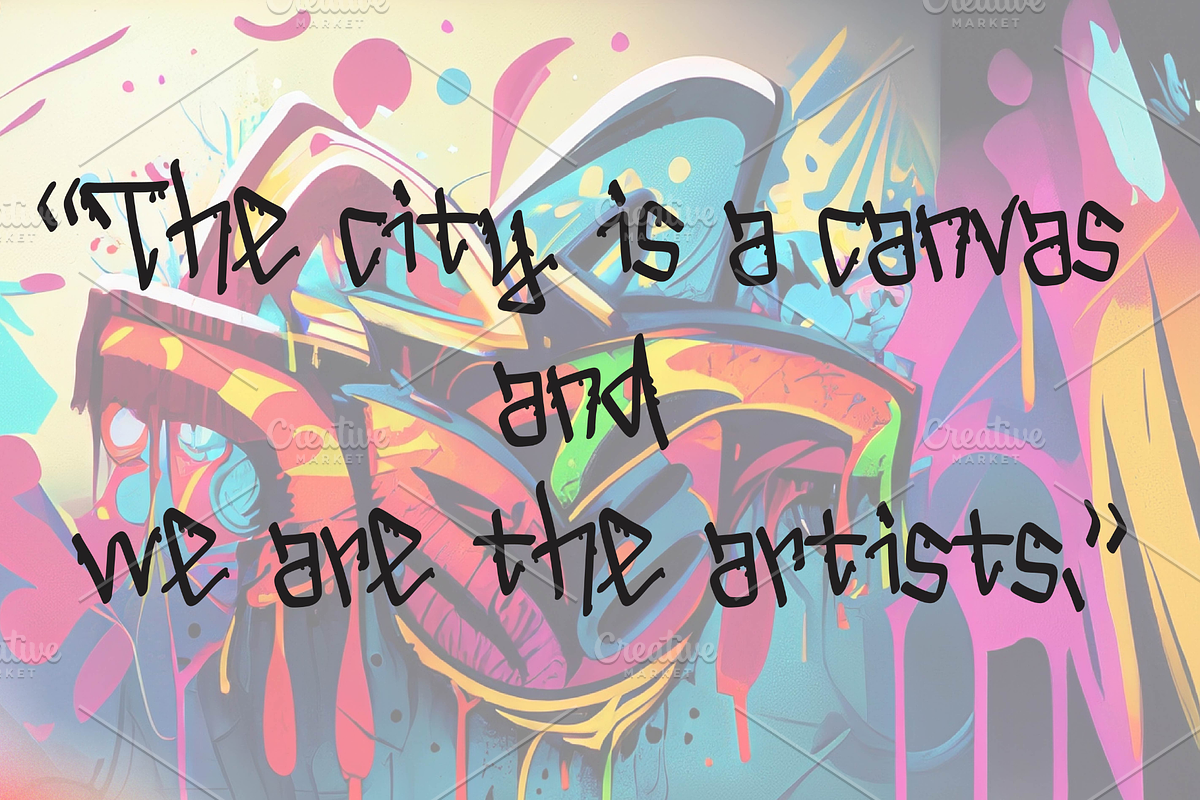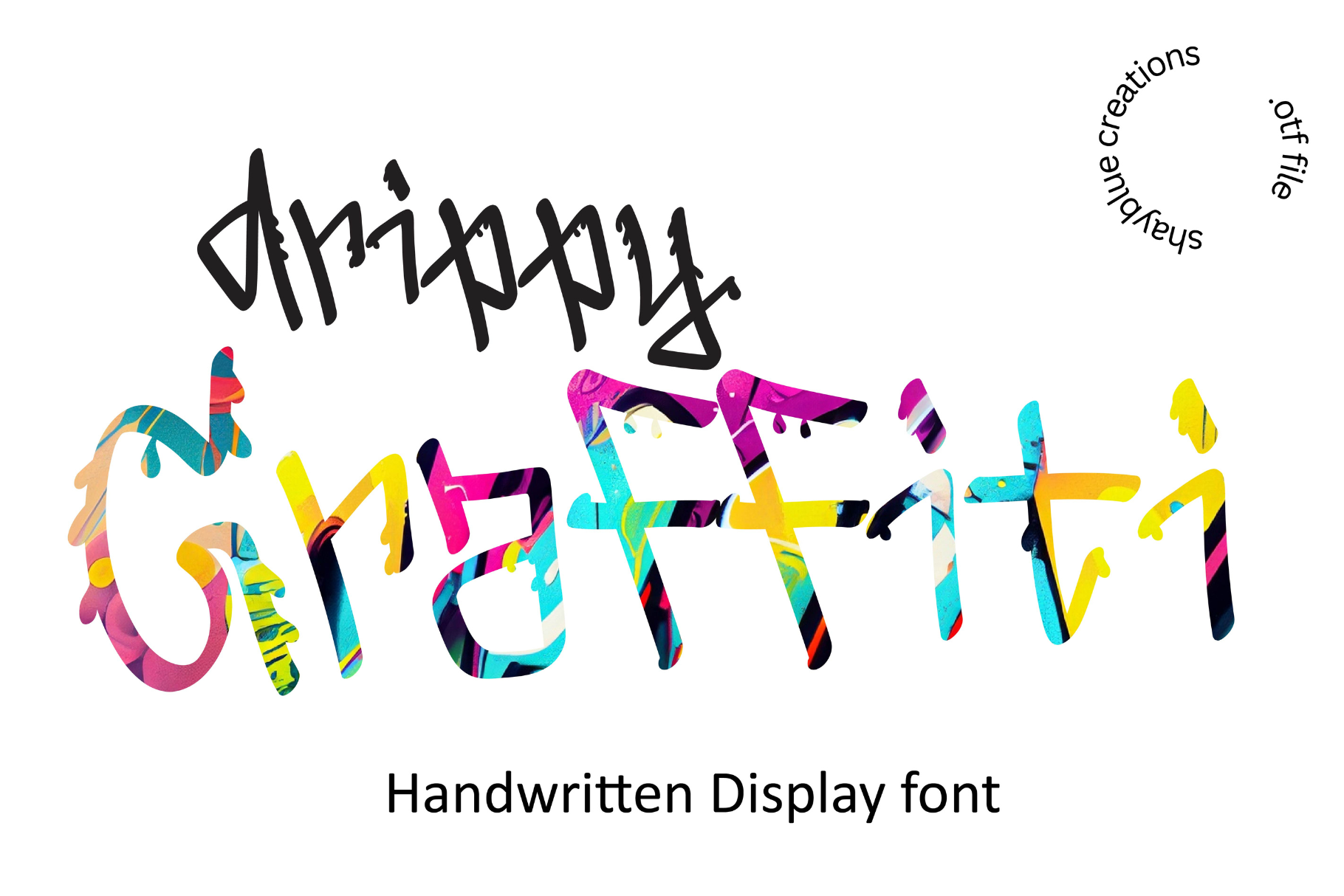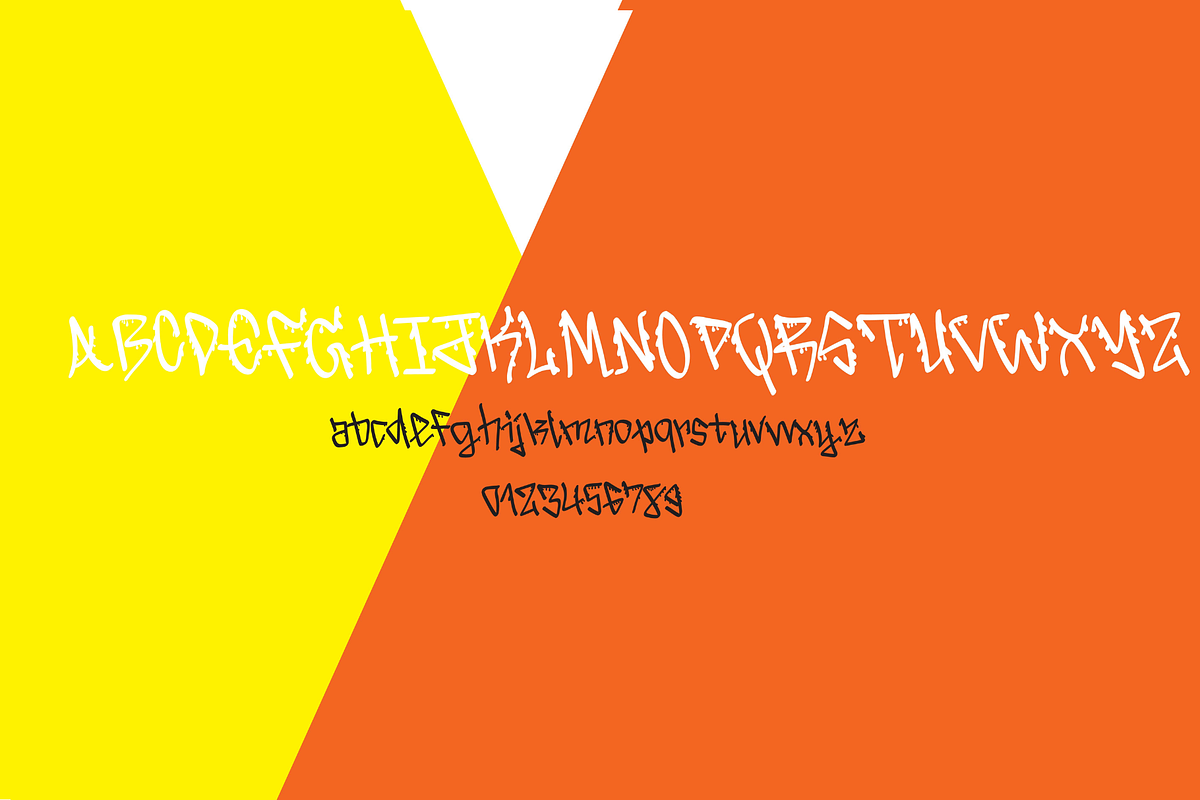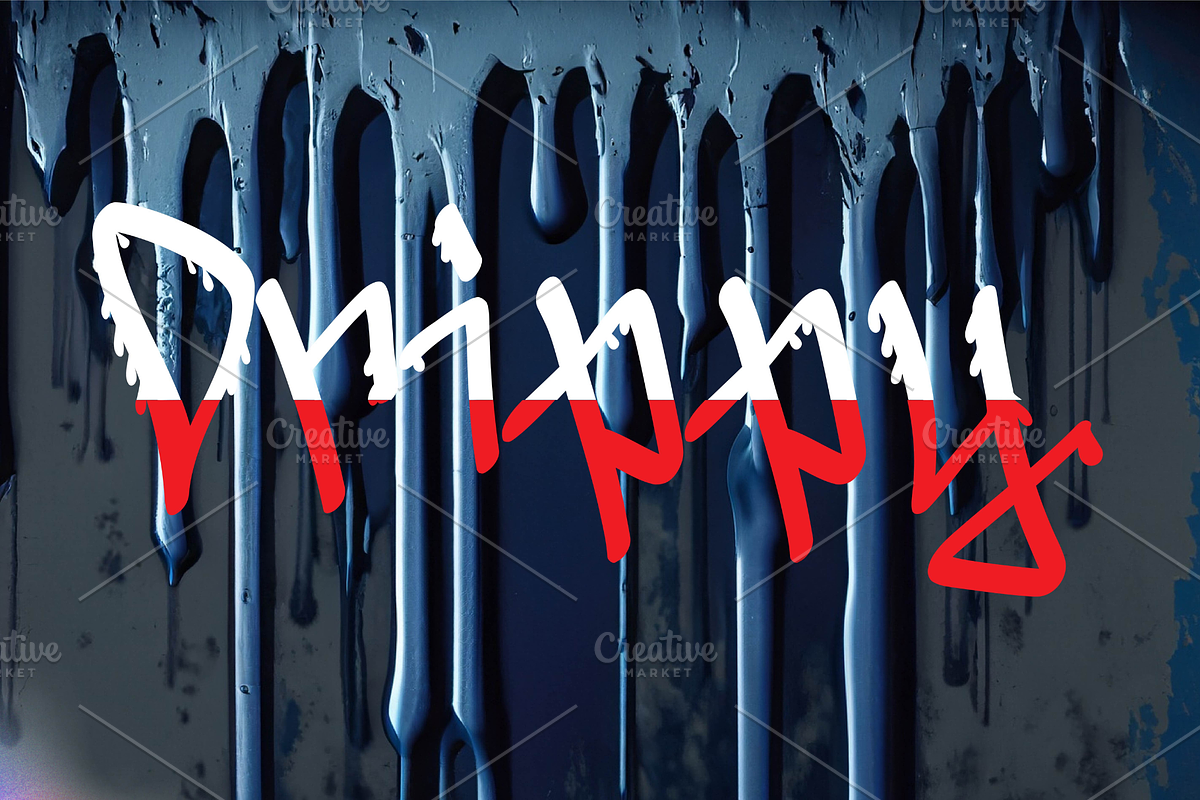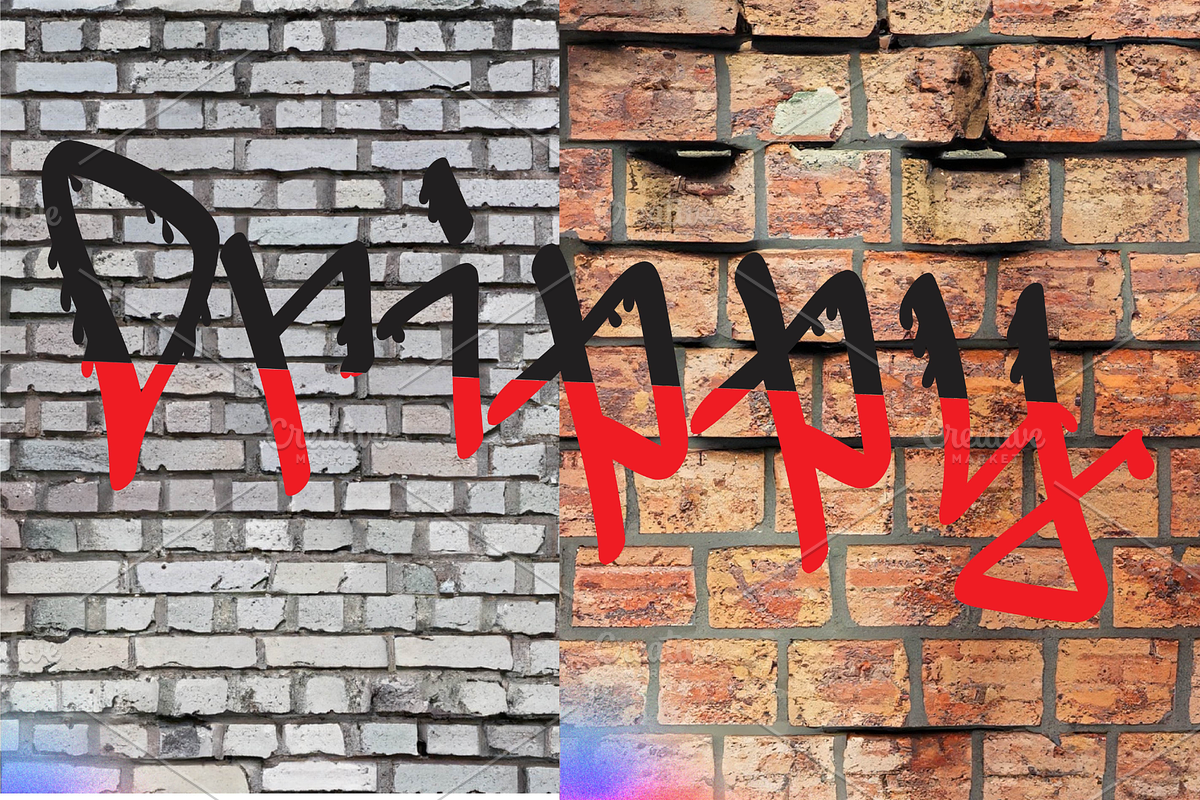
Graffiti Handwritten Display Font
Drippy Graffiti is a font that looks like it was written with a spray can on a wall. It has a cool and funky vibe, with letters that are dripping with style. This font is great for making your designs stand out, whether you want to create a logo, a poster, a sticker, or anything else that needs some street flair. Drippy Graffiti is a bold and expressive font that will give your projects a fresh and urban feel.